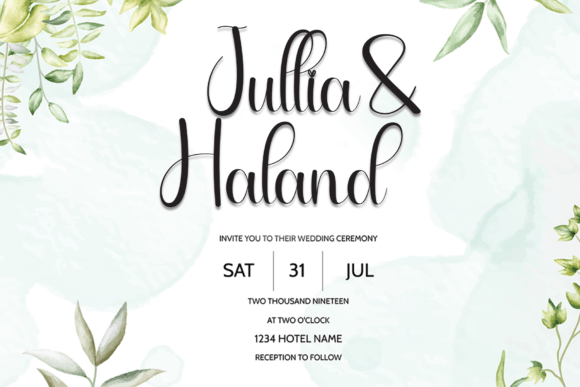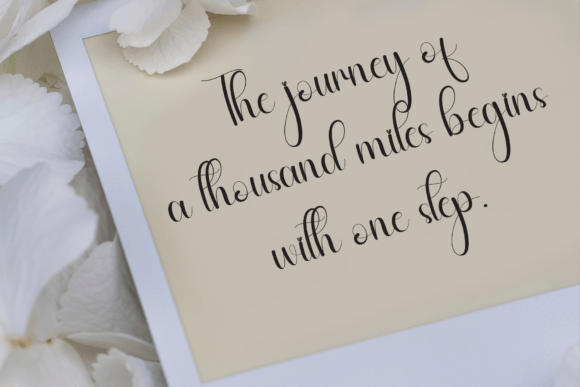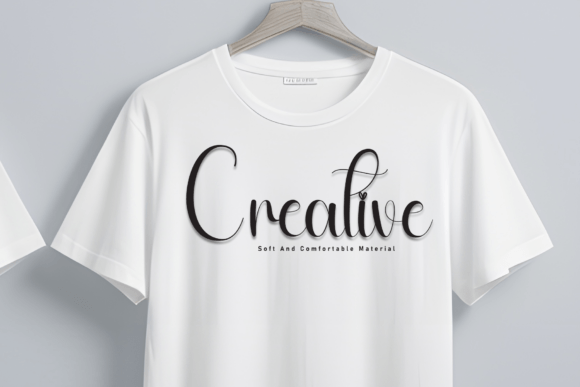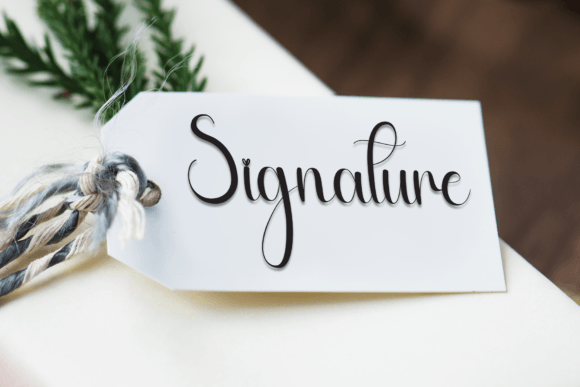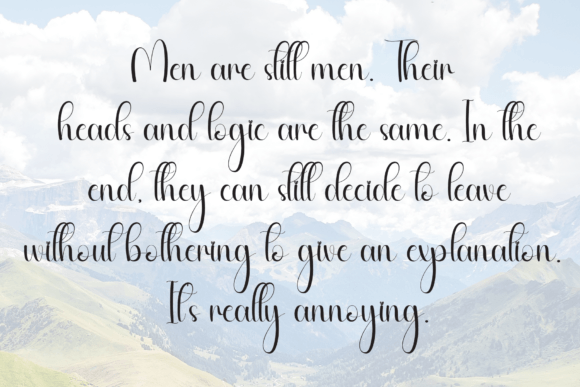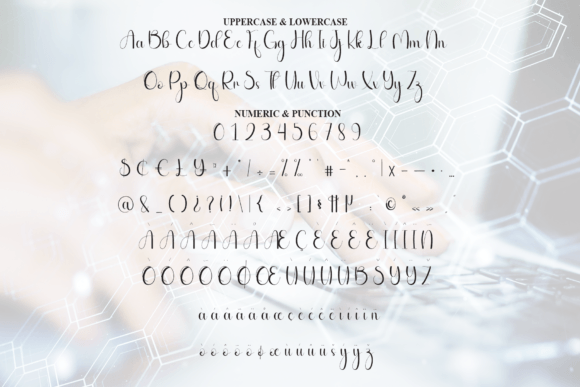
Introducing Digital: The Elegant Handwritten Script Font
In the world of digital design, typography plays a crucial role in conveying the tone and personality of a brand. A well-crafted font can elevate a design from ordinary to extraordinary, making it essential for designers and crafters to choose the right one. If you’re looking for a stylish and sophisticated font that exudes elegance and charm, look no further than Digital, a beautiful handwritten script font.
The Beauty of Digital Font
Digital is a stunning handwritten script font that boasts fluid, graceful strokes that dance across the page. Its smooth curves and natural flow create a timeless, refined look that’s perfect for a variety of design applications. Whether you’re working on a branding project, creating invitations, or designing stationery, Digital adds a personal and sophisticated touch that will leave a lasting impression.
Key Features of Digital Font
- Elegant and charming: Digital’s fluid strokes and smooth curves create a beautiful, elegant look that’s sure to captivate your audience.
- Handwritten script: This font’s handwritten script style adds a personal touch to any design, making it perfect for projects that require a human touch.
- Timeless and refined: Digital’s classic look ensures that your design will never go out of style, making it a great investment for designers and crafters.
- Versatile: This font is suitable for a wide range of design applications, from branding and invitations to stationery and more.
Why Choose Digital Font?
With so many fonts available, why choose Digital? Here are just a few reasons why this font stands out from the crowd:
- Unique and distinctive: Digital’s elegant strokes and charming personality ensure that your design will stand out from the competition.
- Easy to read: Despite its elegant and cursive nature, Digital is surprisingly easy to read, making it perfect for body text and headlines.
- Scalable: This font is designed to look great at any size, from small captions to large headlines.
Using Digital Font in Your Designs
Digital is an incredibly versatile font that can be used in a wide range of design applications. Here are just a few ideas to get you started:
- Branding: Use Digital to create elegant and sophisticated branding materials, such as logos, business cards, and letterheads.
- Invitations: Add a touch of elegance to your invitations, whether you’re planning a wedding, birthday party, or corporate event.
- Stationery: Create beautiful stationery, such as notebooks, journals, and greeting cards, with Digital’s charming script.
Tips for Pairing Digital Font with Other Fonts
While Digital is stunning on its own, it can also be paired with other fonts to create a unique and harmonious look. Here are a few tips for pairing Digital with other fonts:
- Pair with a sans-serif font: Pair Digital with a clean and modern sans-serif font, such as Arial or Helvetica, to create a beautiful contrast.
- Combine with a serif font: Combine Digital with a classic serif font, such as Times New Roman or Georgia, to create a sophisticated and elegant look.
- Experiment with script fonts: Don’t be afraid to pair Digital with other script fonts to create a unique and creative look.
In conclusion, Digital is a stunning handwritten script font that exudes elegance and charm. Its fluid strokes, smooth curves, and natural flow create a timeless, refined look that’s perfect for a wide range of design applications. Whether you’re a designer or crafter, Digital is a great addition to your font library, and with its versatility and scalability, it’s sure to become a favorite. So why not give Digital a try and see how it can elevate your designs to the next level?